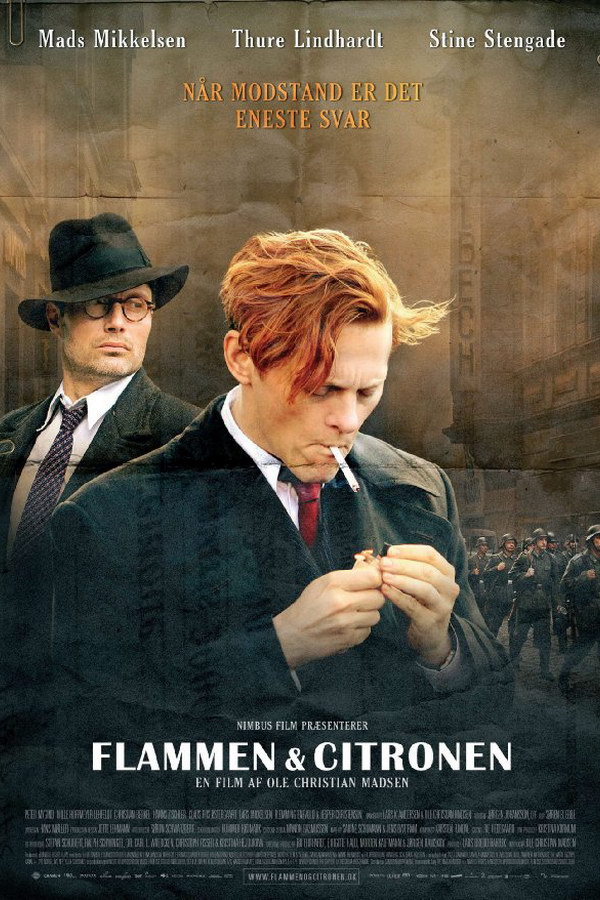
Flame & Citron Font
Fonts in UseFlame & Citron, or Flammen & Citronen (Danish), is a 2008 Danish film set in Nazi-occupied Denmark during World War II. It follows the story of two resistance fighters, Flame and Citron, as they carry out acts of sabotage against the Germans while struggling with their own personal demons.
The movie title font is most likely set in Britannic Bold, which was created by the British type foundry, Stephenson Blake. This commercial font was widely used from the 19th century until the 1990s, and additional information about it can be found here.